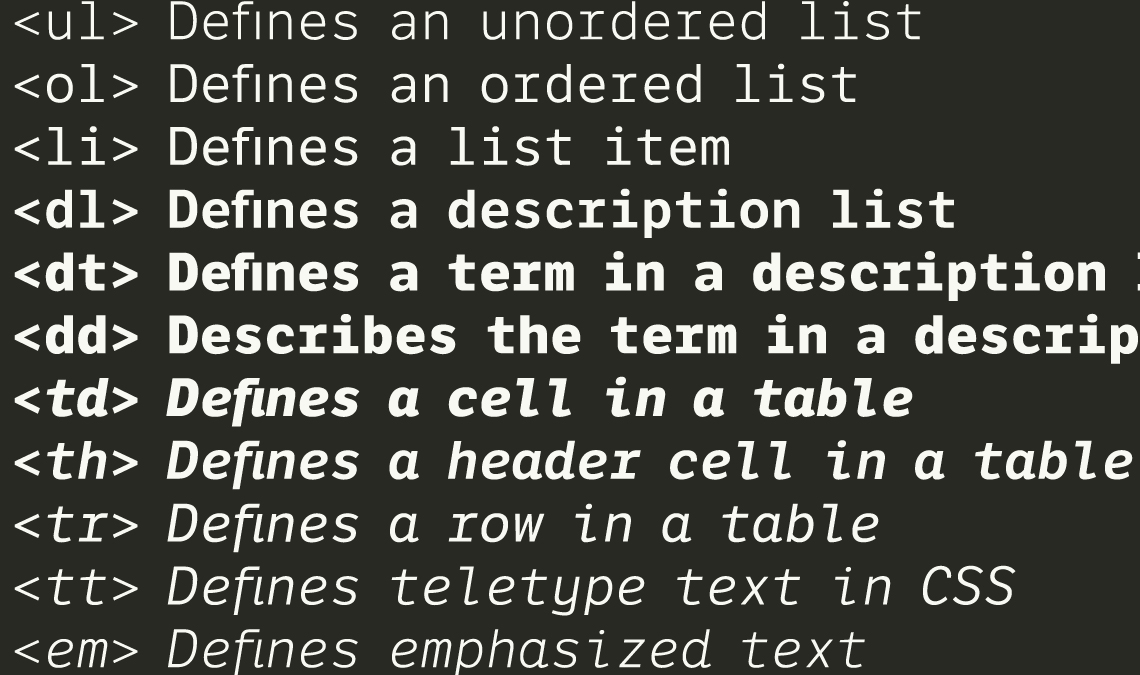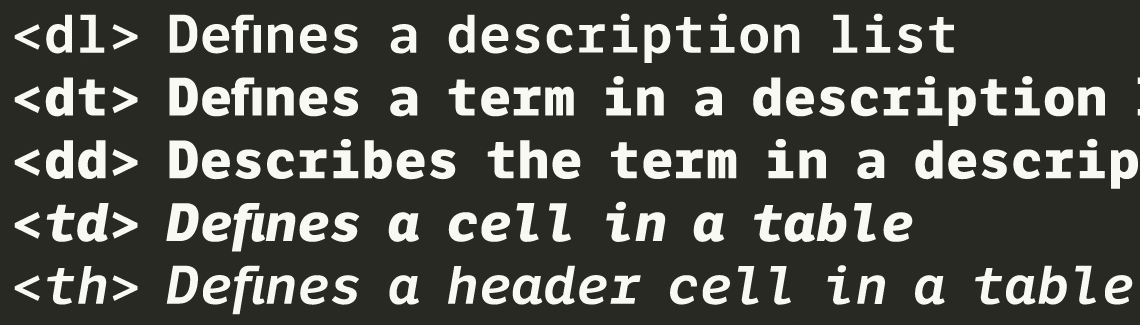
New Release: LFT Etica Mono
Welcome LFT Etica Mono, the technical but not limiting, monospaced sans that encodes the bytes of a beautiful life.
We are happy to announce the latest addition to the LFT Etica family: LFT Etica Mono! Some things seem trendy, while others seem inevitable. LFT Etica Mono fulfils the necessary requirements of a daily font for coding and also meets the aesthetic desires of a designer. With two options for italics (one more cursive and the other strait-laced), LFT Etica Mono can optimise its feel for various situations. Check out this companion to Leftloft’s immensely popular LFT Etica and LFT Etica Sheriff families in our website type tester.